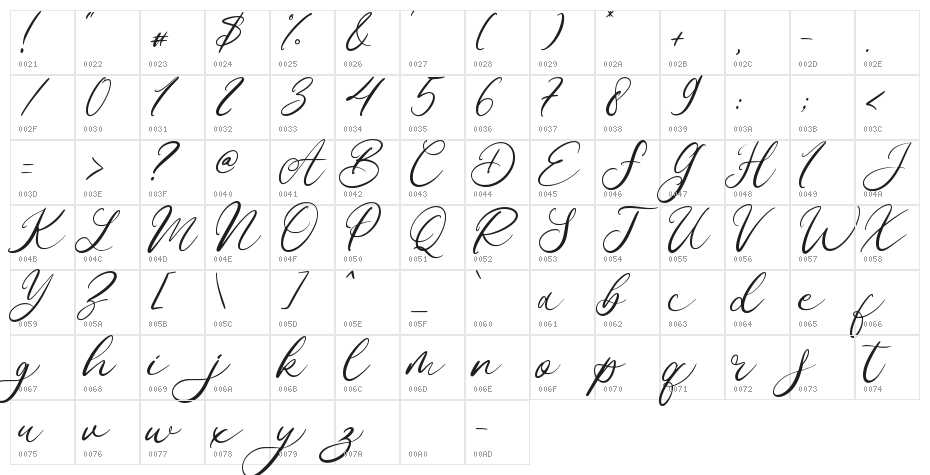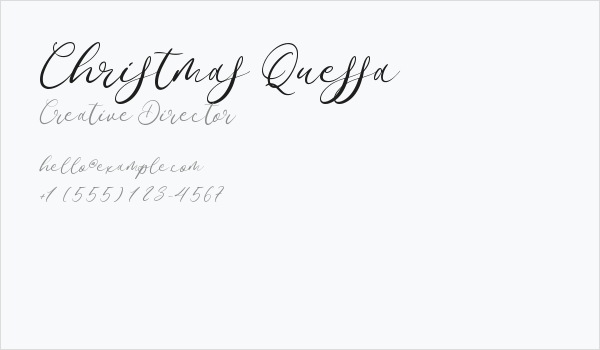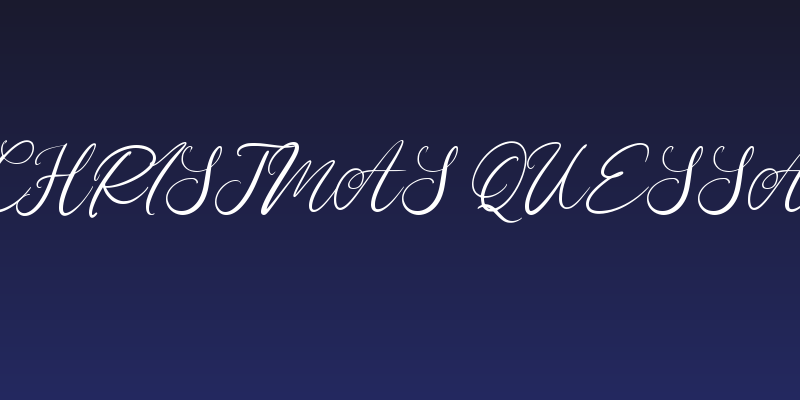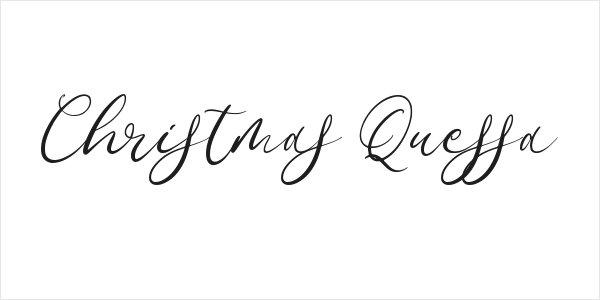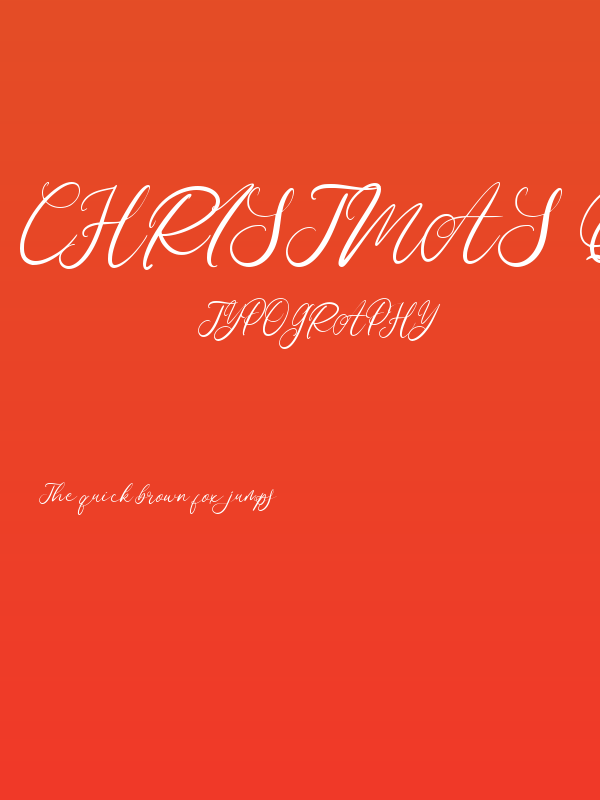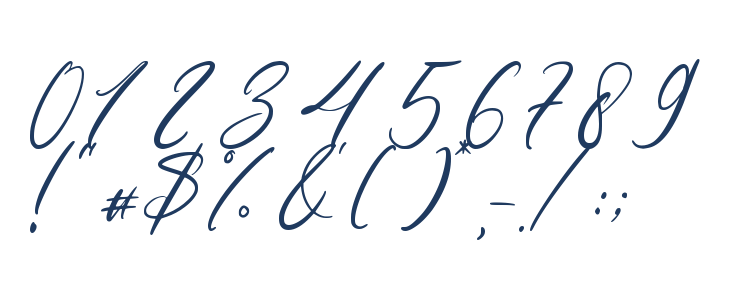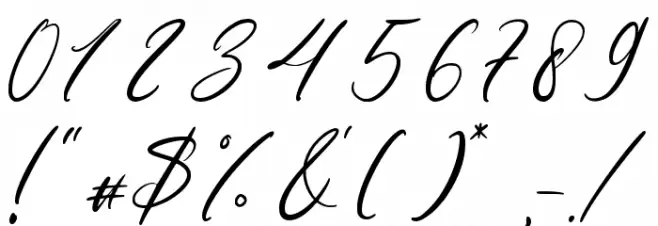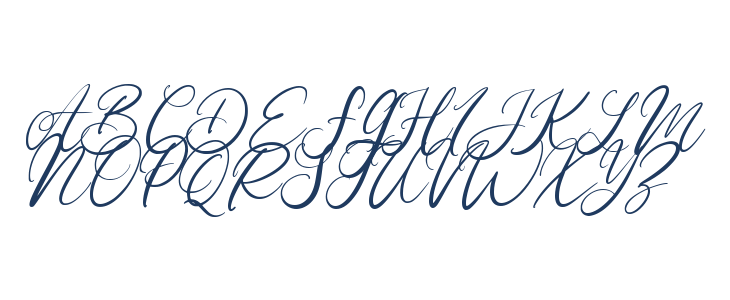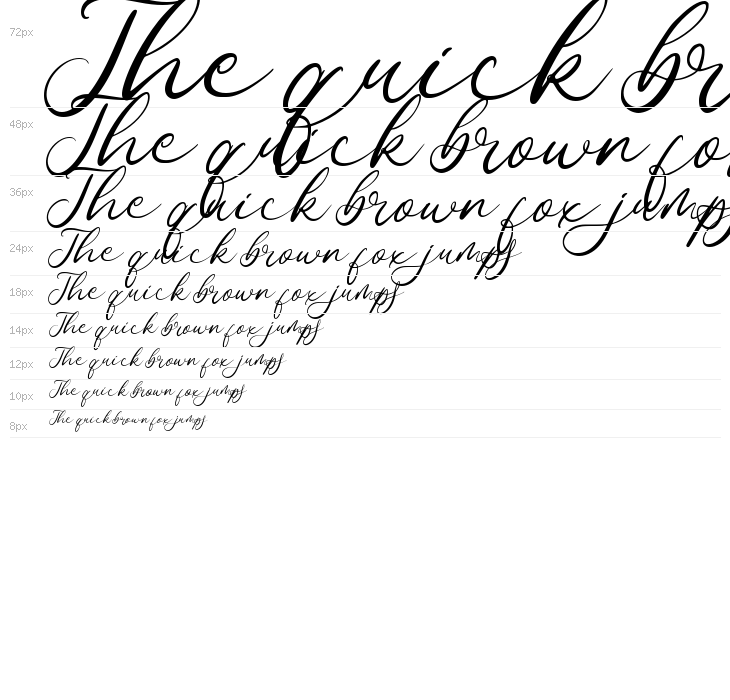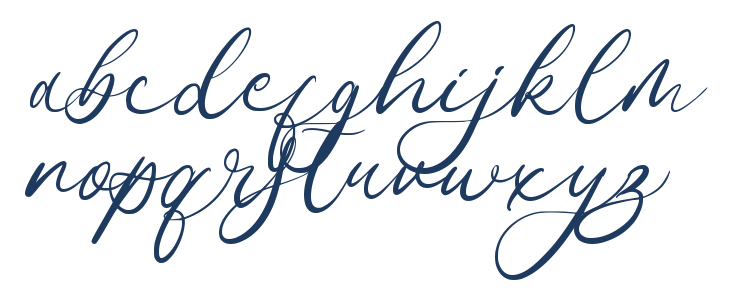
Christmas Quessa Font
Christmas Quessa Description
Elegant, flowing script font with high contrast and fluid, connected letterforms, mimicking expressive modern calligraphy. The characters have long ascenders and descenders, and the overall look is ornate yet legible.
| Overall Style | Decorative, Modern, Handwritten |
| Use Case | Headlines, Logos, Invitations, Decorative text |
| Proposed Projects | Wedding invitations, greeting cards, branding, event posters, decorative headlines. |